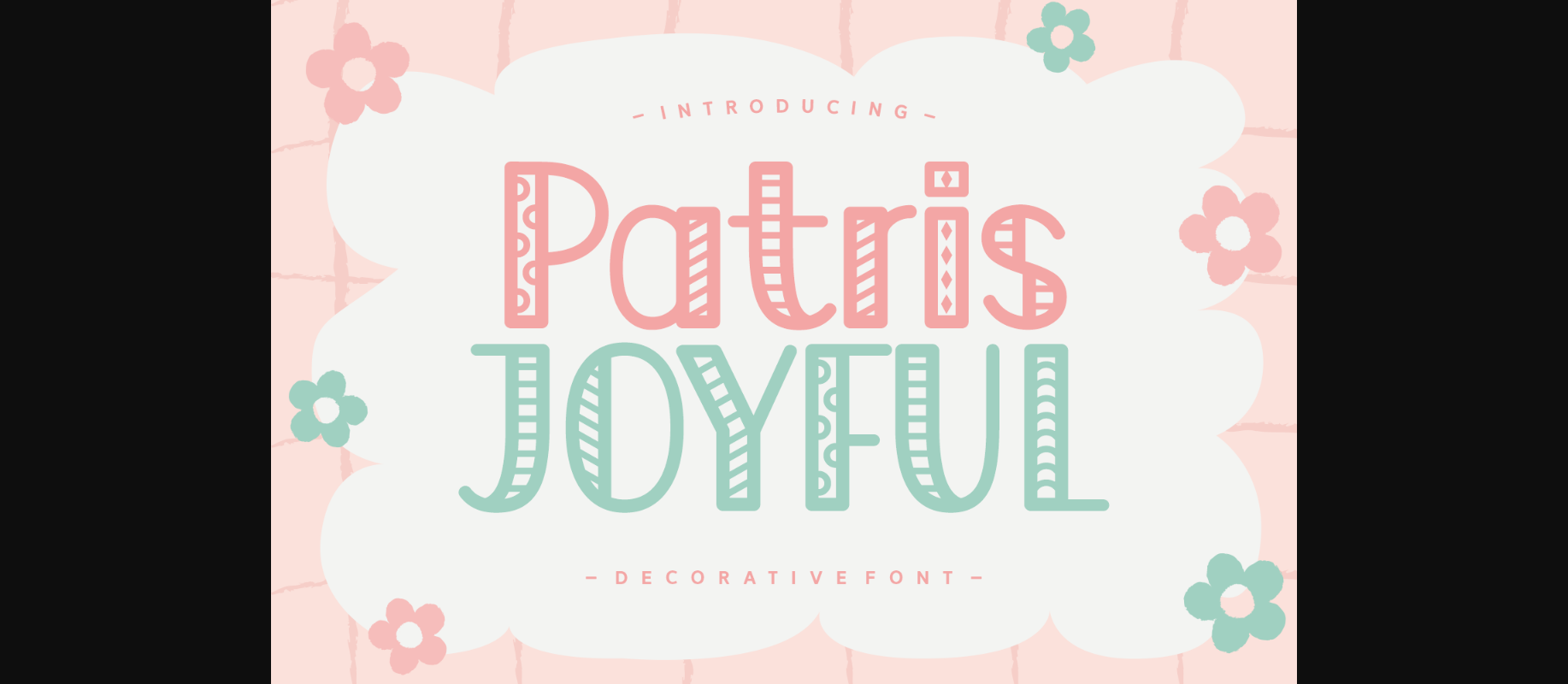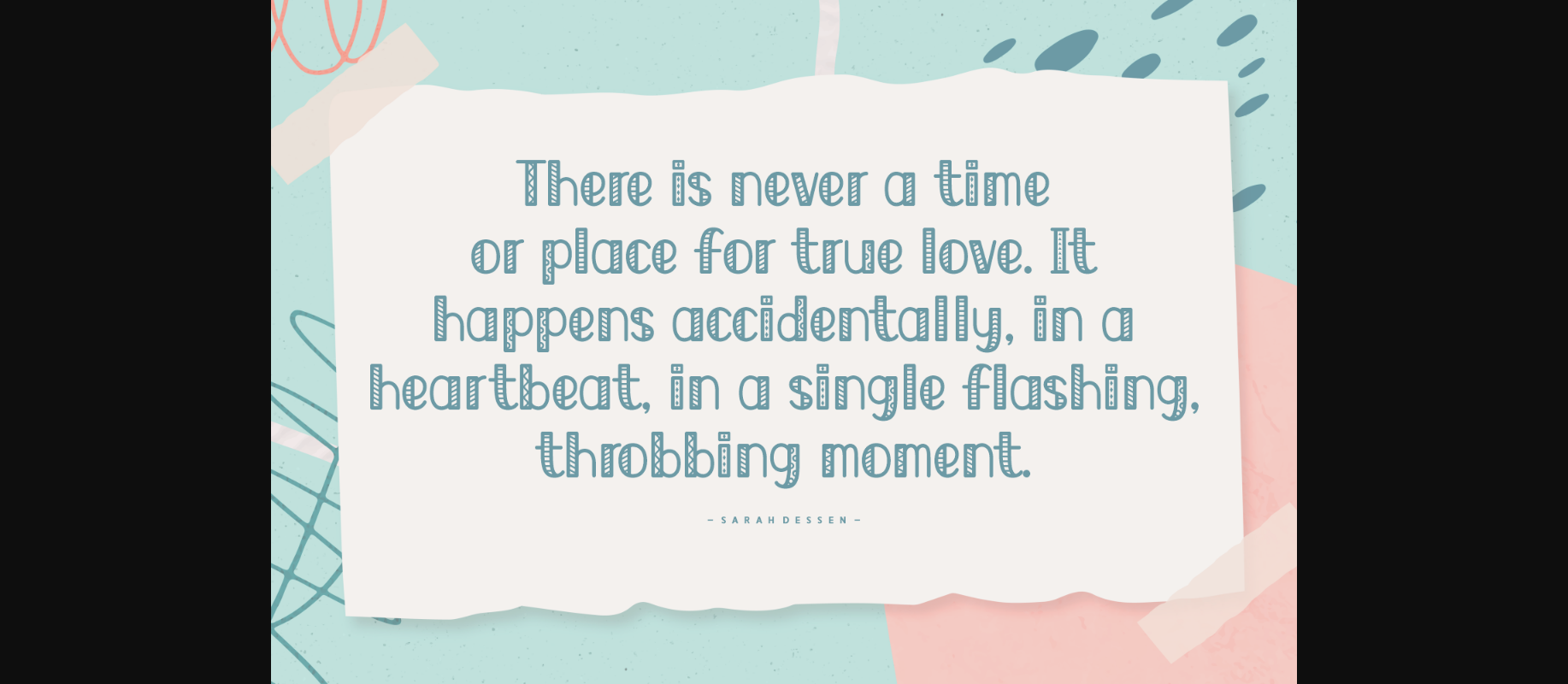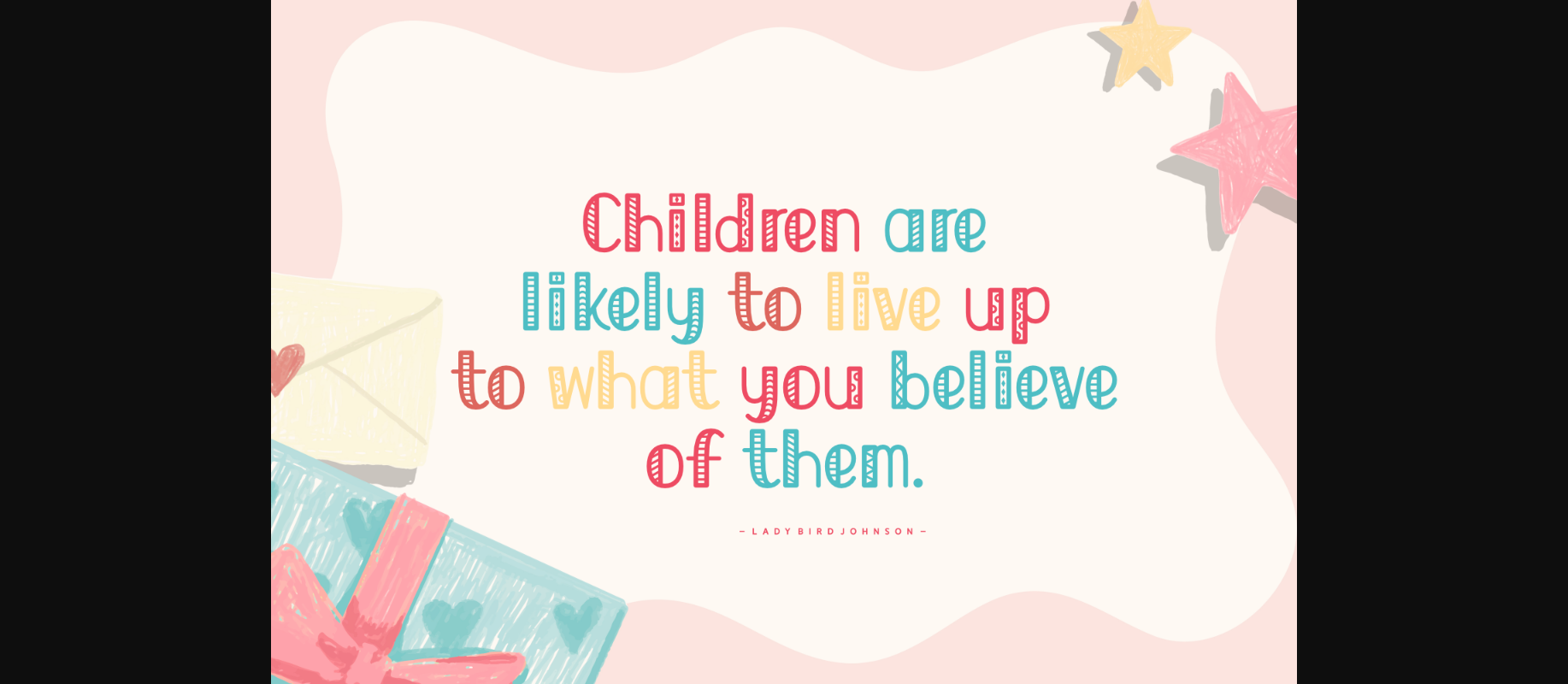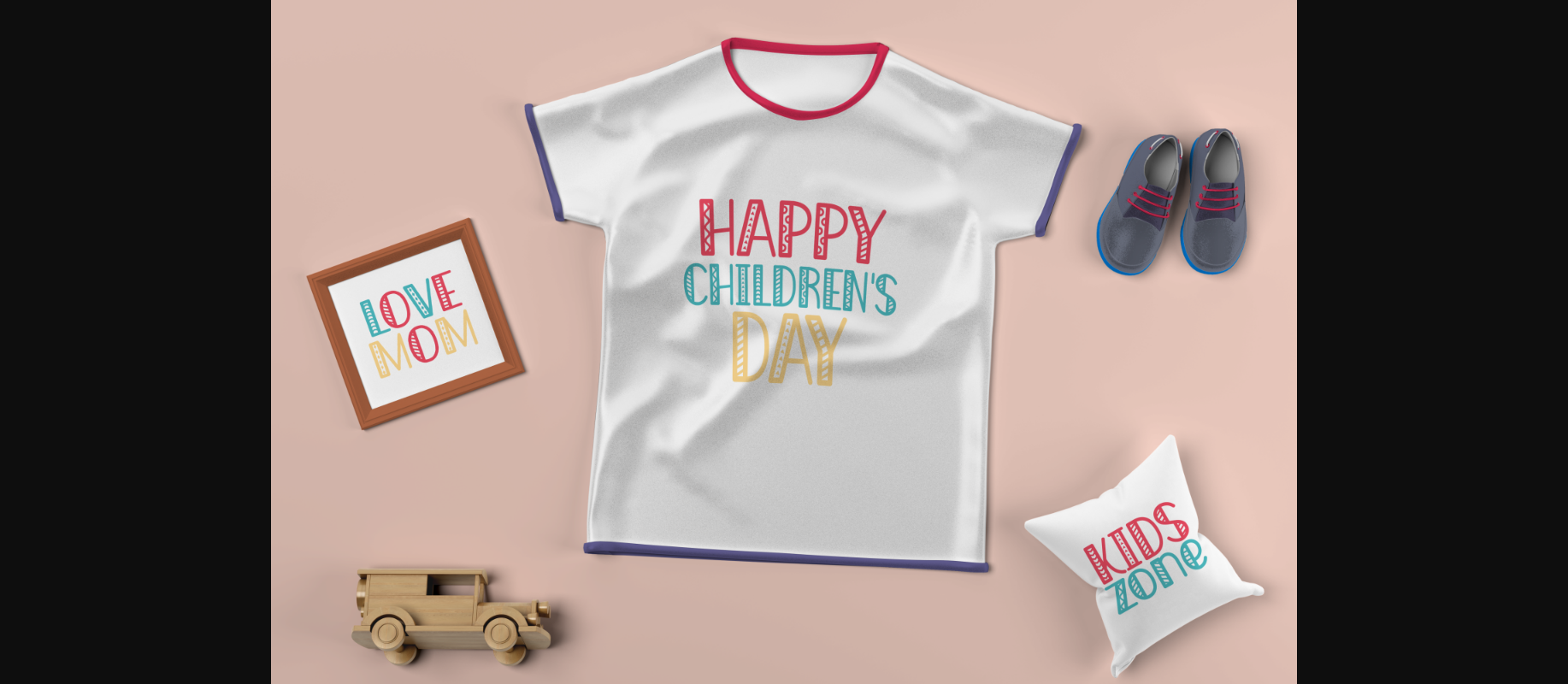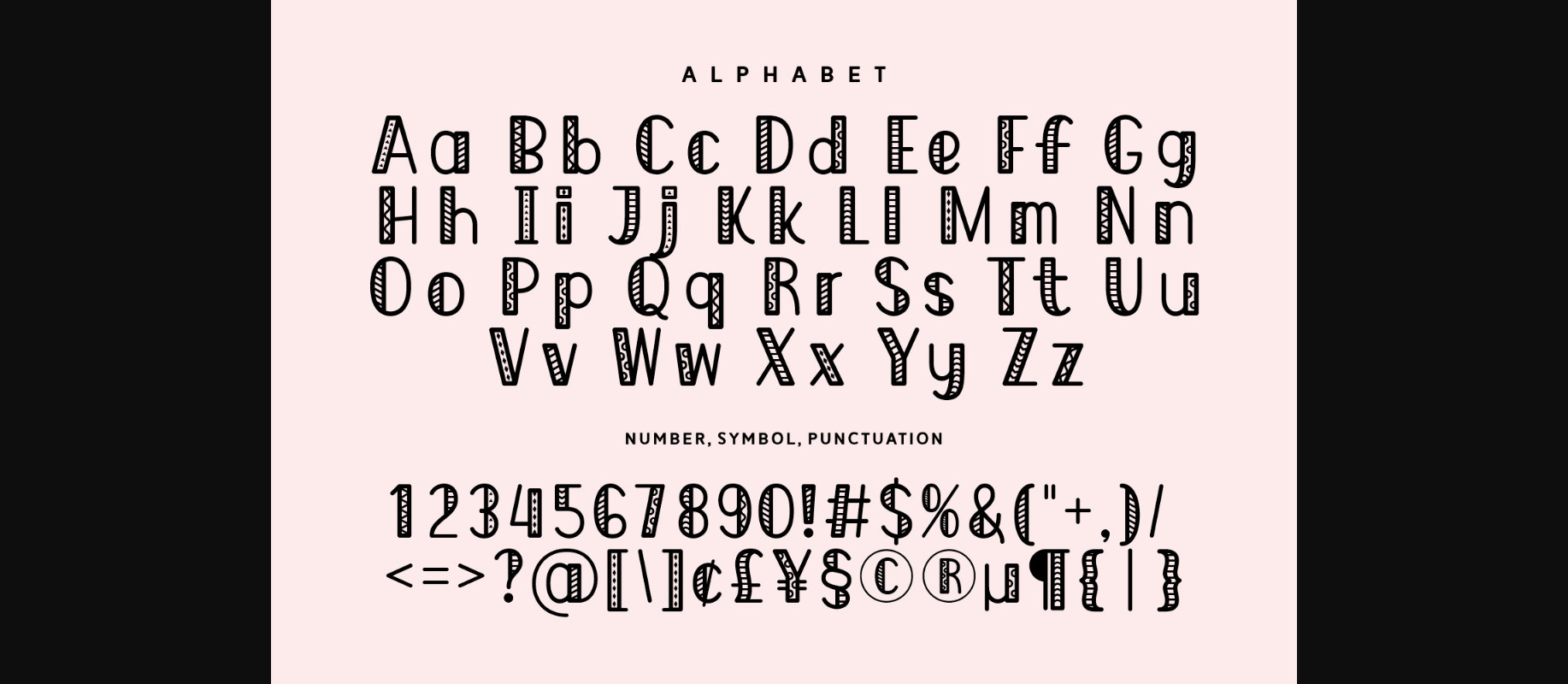
Patris Joyful Font
About Patris Joyful Font
Patris Joyful is a playful and lovely decorative font that is perfect for adding a touch of whimsy to any project. With its soft curves and playful elements, it’s ideal for invitations, greeting cards, or any design that needs a touch of charm. Its versatility makes it a must-have for any designer’s toolkit.